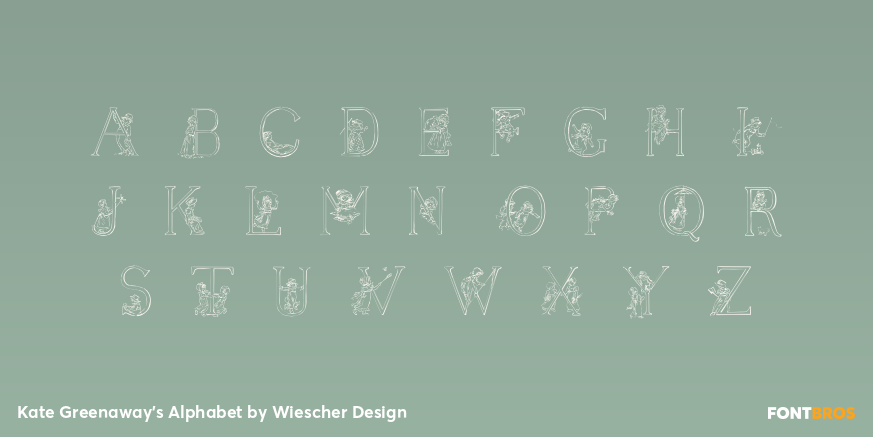
Kate Greenaway's Alphabet
Font Family by Wiescher Design
Some time ago I bought my smallest book ever: Kate Greenaway's Alphabet* 57 x 72 mm. I thought it was the sweetest little book I had ever seen. Not knowing about the fame of the designer Kate Greenaway (1846-1901) I put it in some dark drawer and looked at it from time to time.
Kate's books were all outstanding successes in English publishing history, she was an icon of the Victorian era. Some of those books are still being reprinted today. This little gem I had accidentially acquired has become very rare and I have not found any reprints yet.
So I thought maybe I can manage to adapt her drawings for use on todays computers. I ventured to redraw her delicate illustrations blowing them up 300 percent, being forced to simplify them without loosing her touch. It took quite some time! While redrawing them I discovered that she most certainly drew them in at least three different sessions as well.
Then I scanned my drawings and put them in a font. To make the font more usable, I added the ten numerals in Kate's style, the original does not have those. I hope she would have liked my adaptions.
* Kate Greenaways Alphabet, edited by George Rutledge & Sons, London and New York, sometime in the late 1800's.